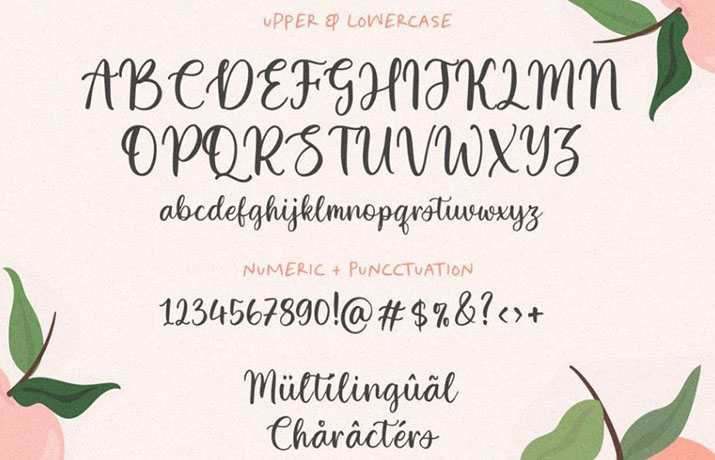
White Apricot Font is a modern handwritten typeface that has a natural, organic feel and unique character. It was designed and published by balpirick.
This fine font has a natural texture that can give a casual and informal look to the design. That’s why it is the best choice for adding more energy to designs.
Its versatile and stylish look makes it an ideal choice for a wide range of projects such as logos, branding, invitations, websites, social media graphics, greeting cards, product packaging, and more.
“White Apricot typeface comes in a single style along with True Type features. This single style contains 127 glyphs, numbers, symbols, and a few punctuation marks. Moreover, it also supports 34 global languages”.
| Style: | Handwritten, Modern, Display |
- This typeface is ideal for use in the clothing sector for their ladies’ shirt designs, brochure layouts, book covers, banner advertising, birthday cards, branding, cosmetics, and professional logos because of its elegant and clean texture.
- Also try it out for magazines, books, greeting/wedding cards, and signs. can do Banners, invitations, birthday cards, headers, letterhead, signs, labels, newsletters, and more.
This font supports 34 multilingual languages.